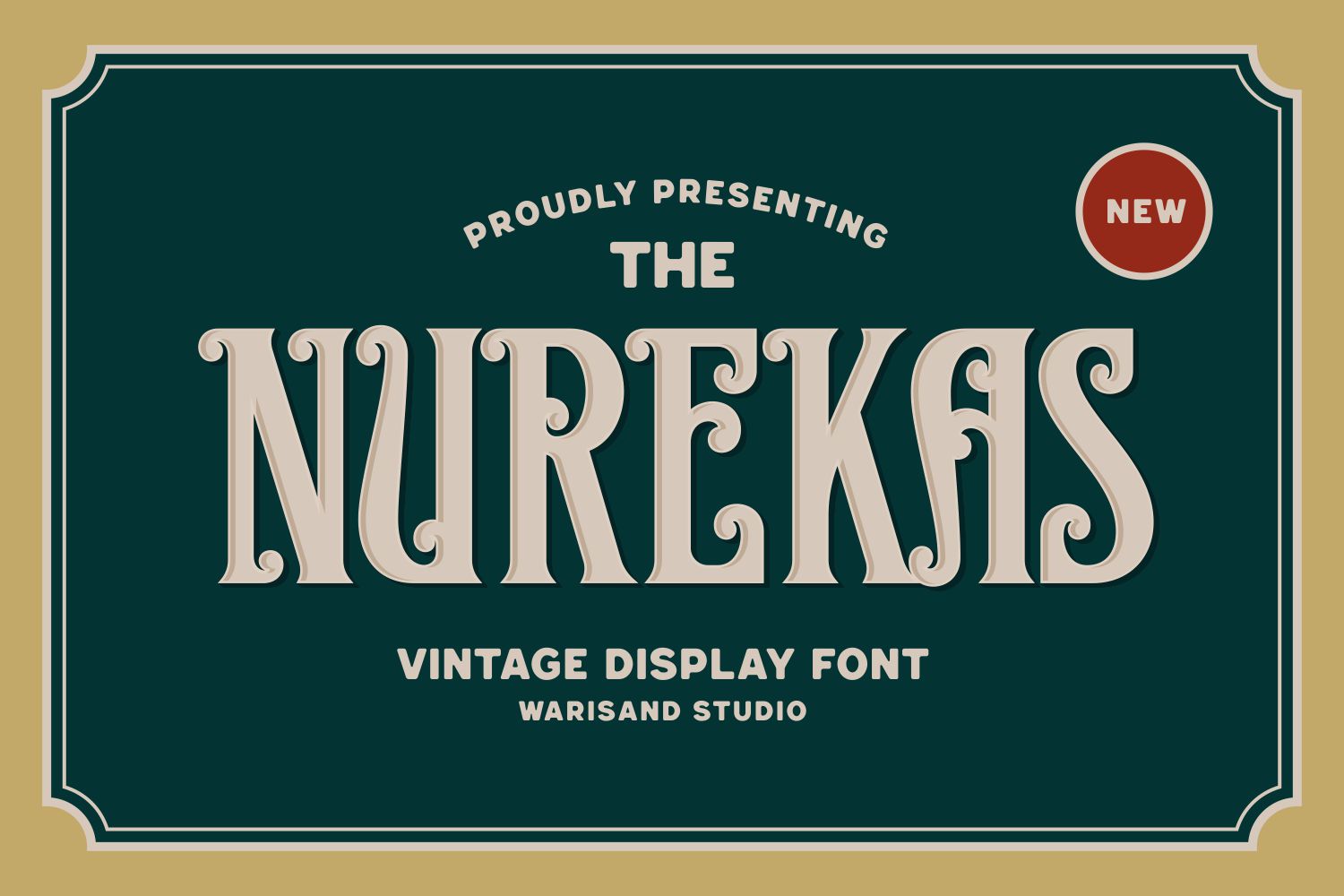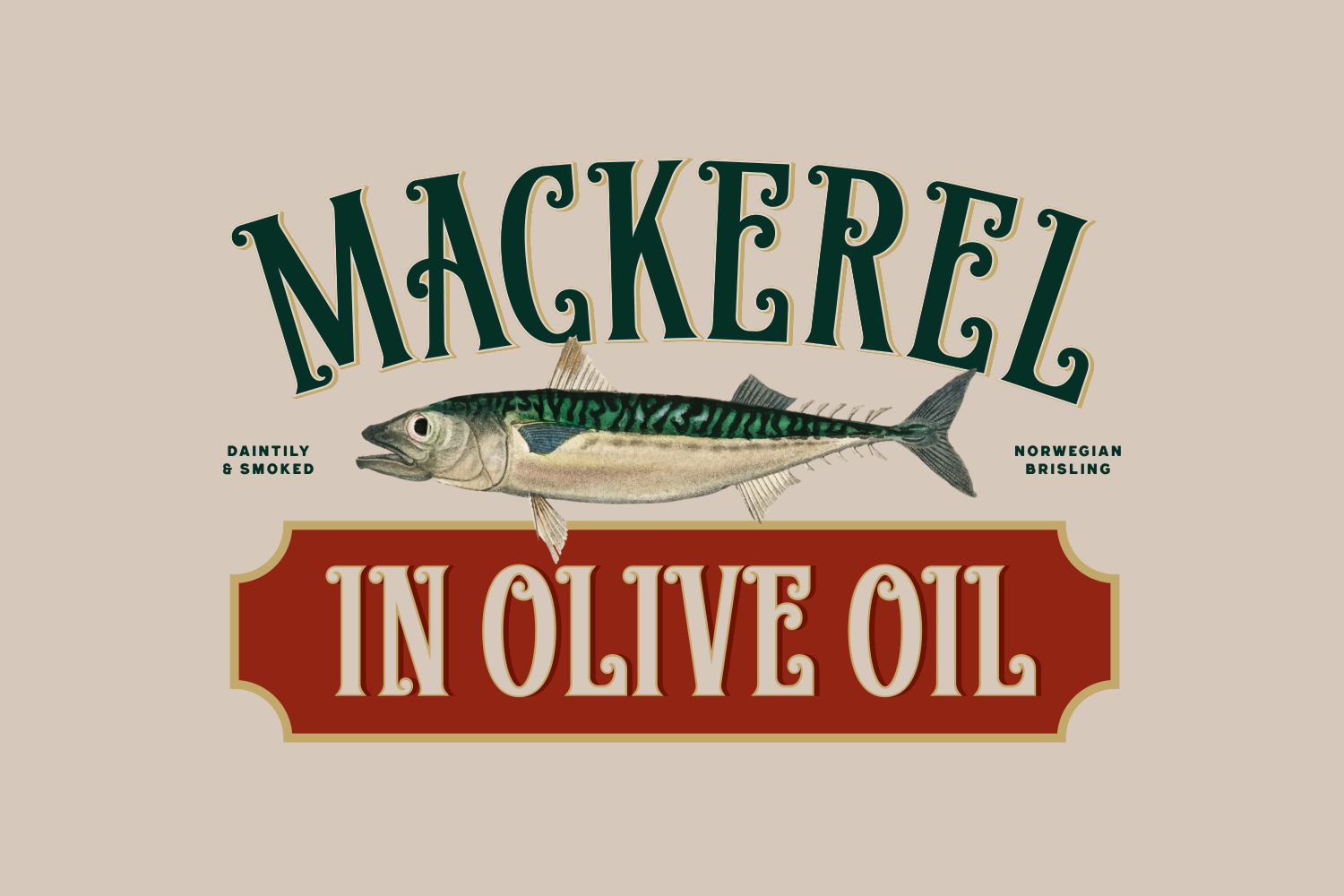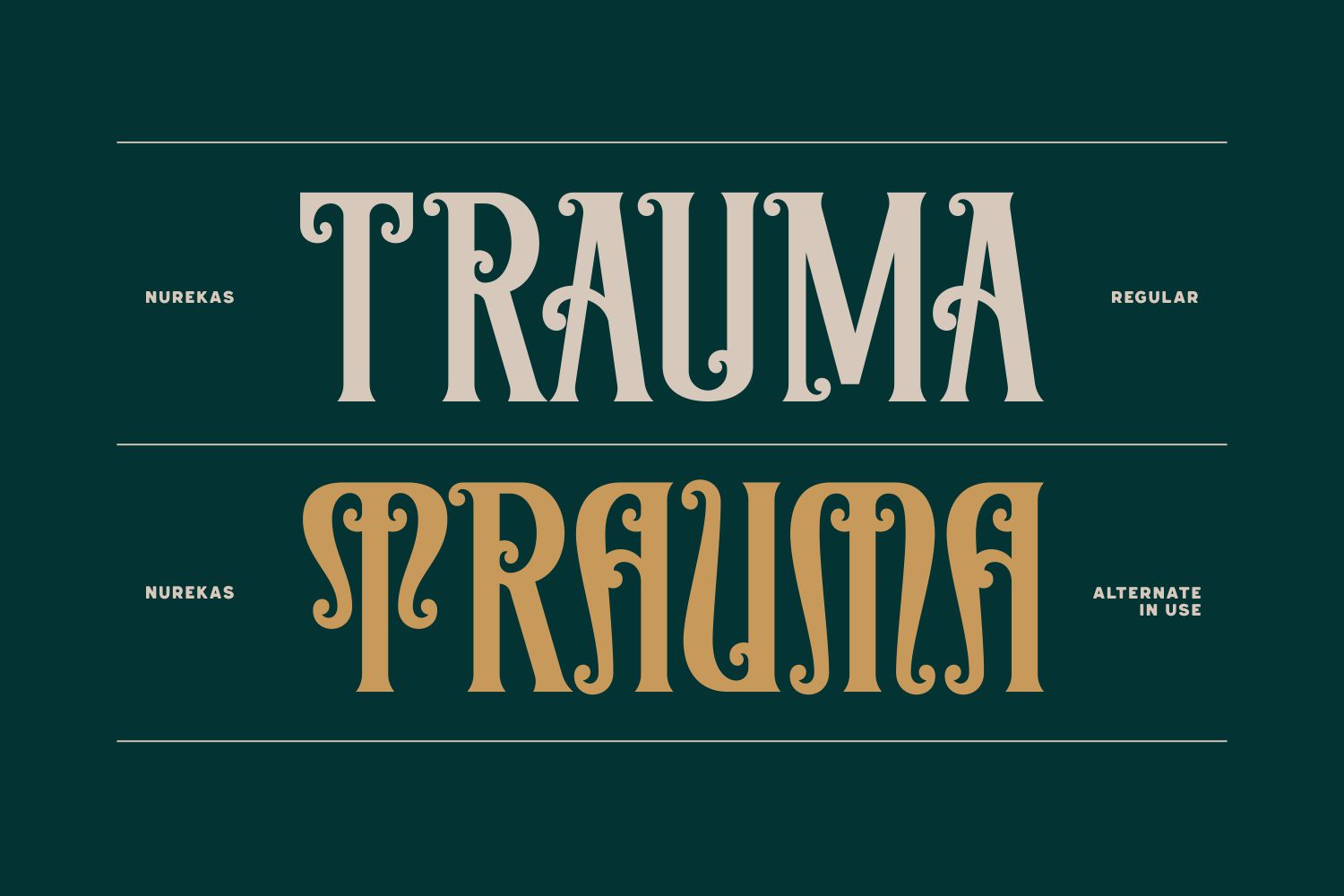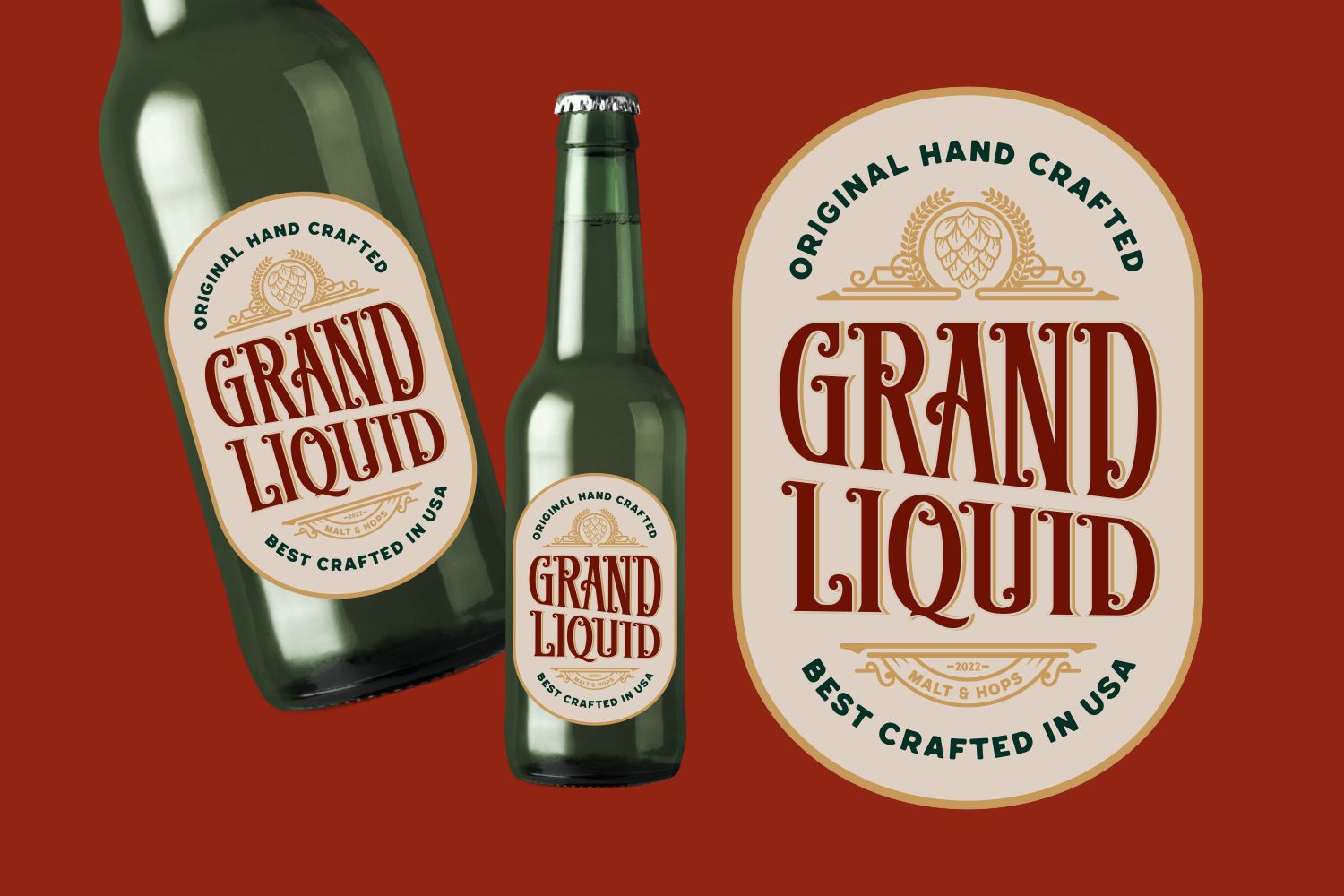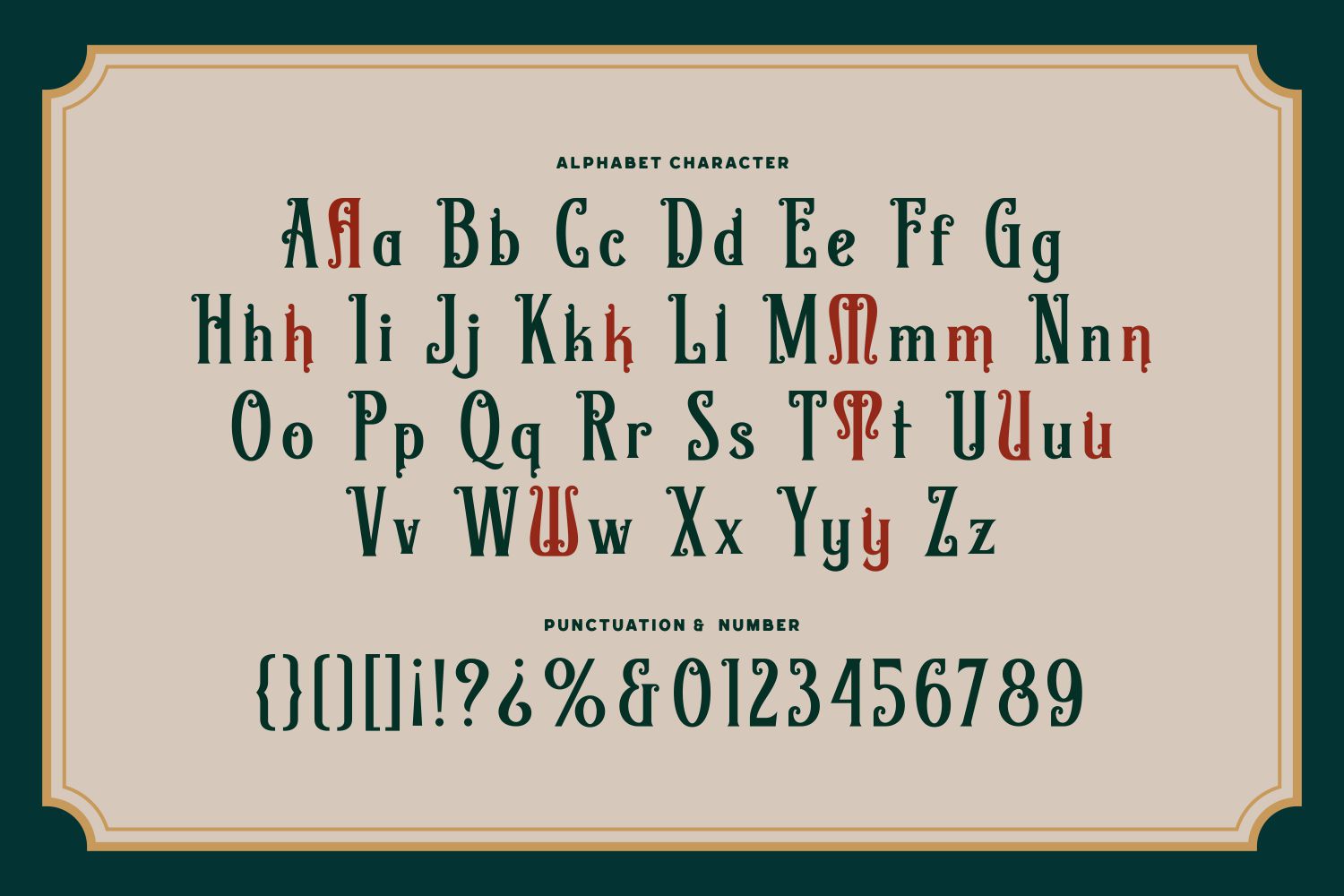
Nurekas is a vintage display font with a bold and ornate character that brings elegance and flair to your design projects. Inspired by antique signage, traditional food labels, and retro branding aesthetics, Nurekas combines strong vertical strokes with stylish swashes and rounded terminals to create a truly standout typographic voice. Its charm lies in the way it fuses modern legibility with a nostalgic spirit, making it ideal for both branding and decorative uses.
Equipped with a full set of uppercase, lowercase, numerals, punctuation, and unique stylistic alternates, Nurekas is highly versatile. Whether you’re working on packaging, bottle labels, logos, posters, or editorial headlines, this font delivers a high-end classic vibe with personality. Nurekas is perfect for designers who want to elevate their compositions with a luxurious yet playful vintage touch.